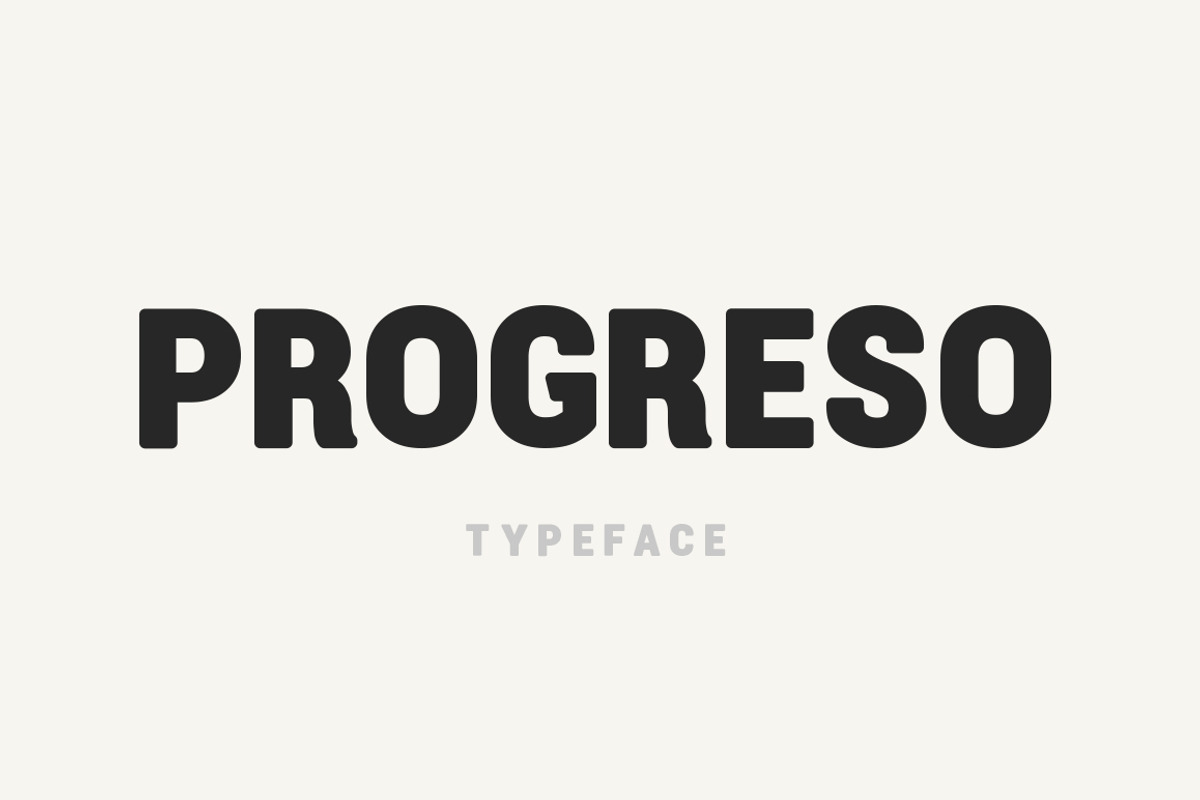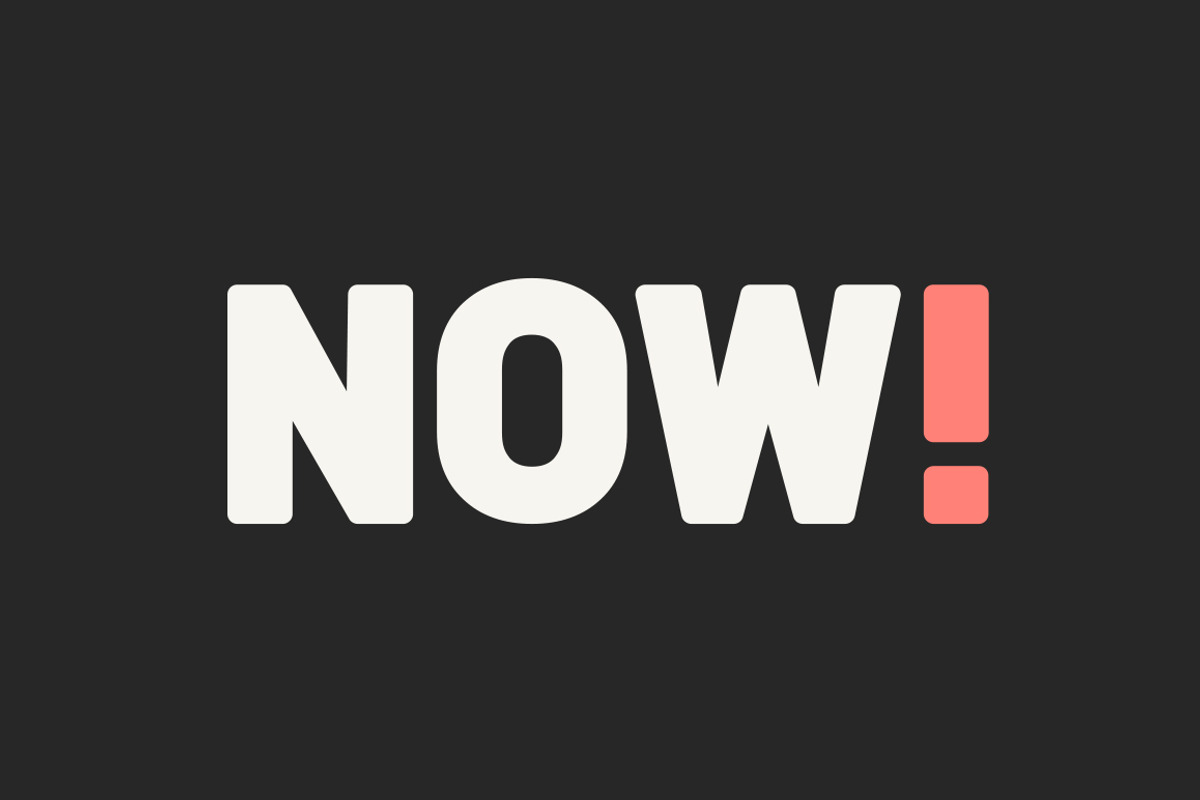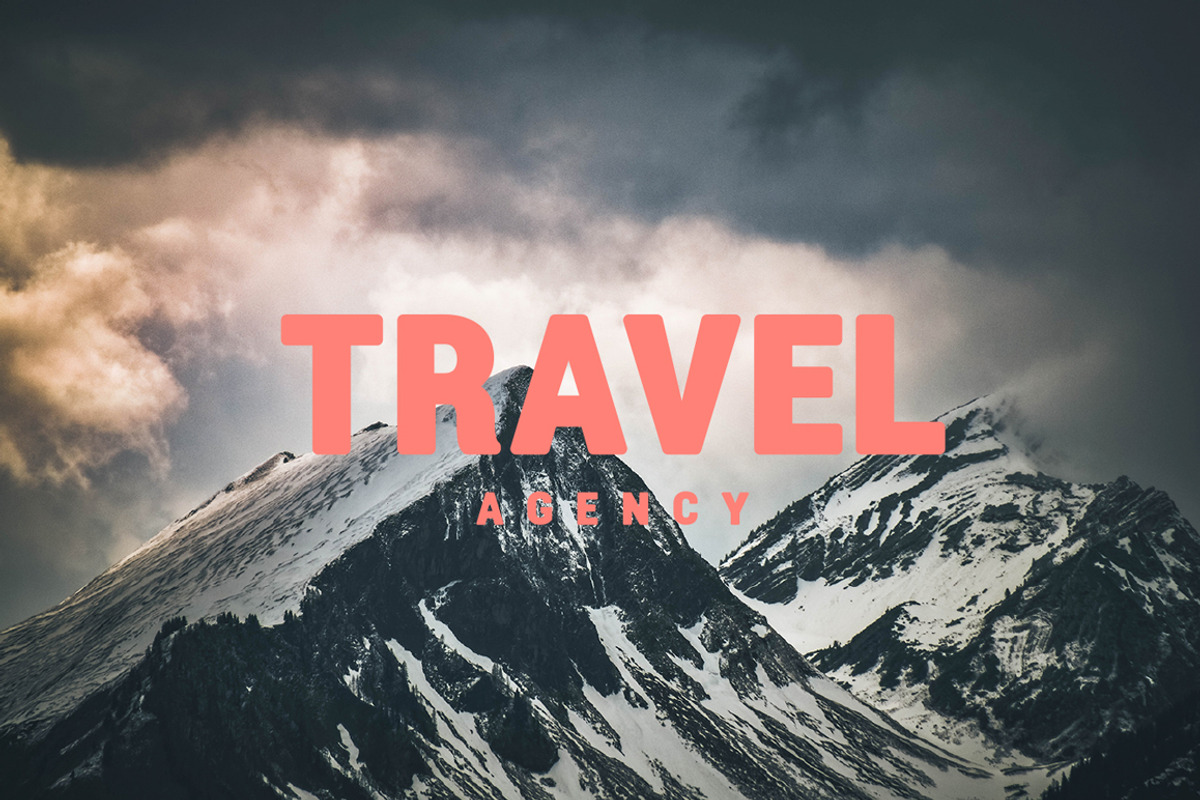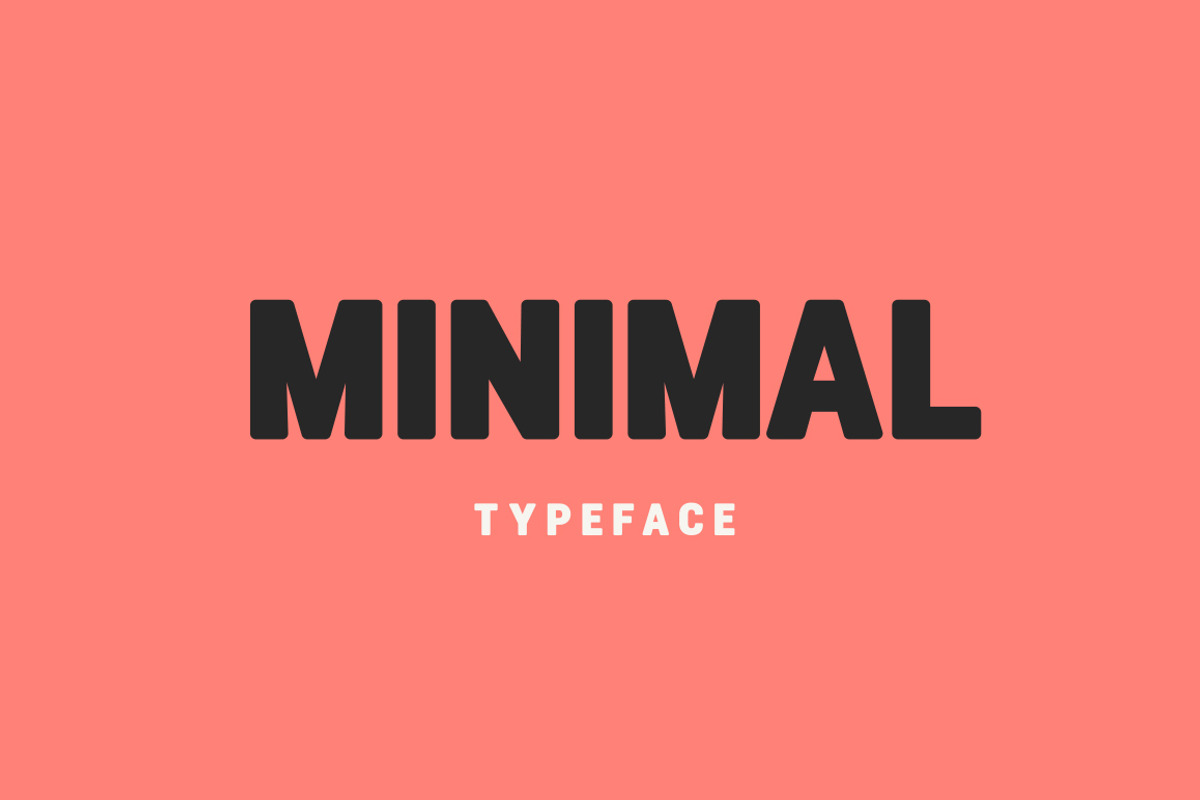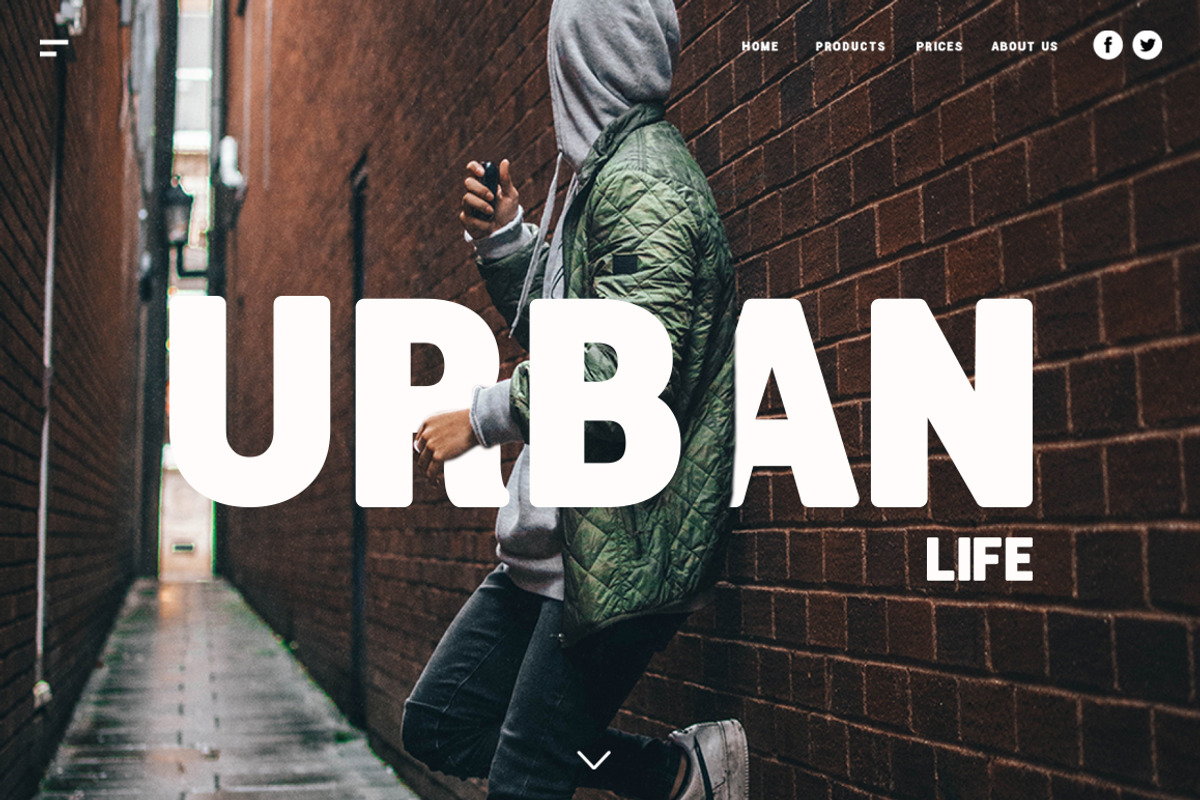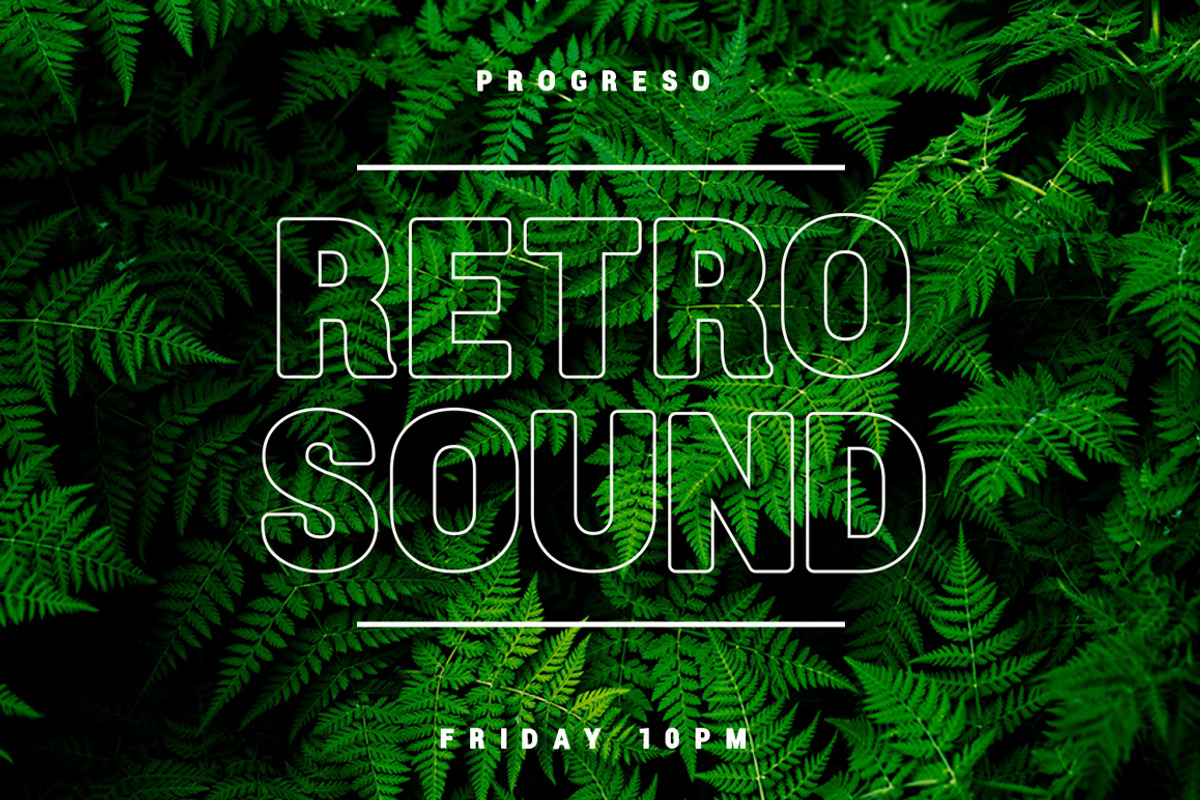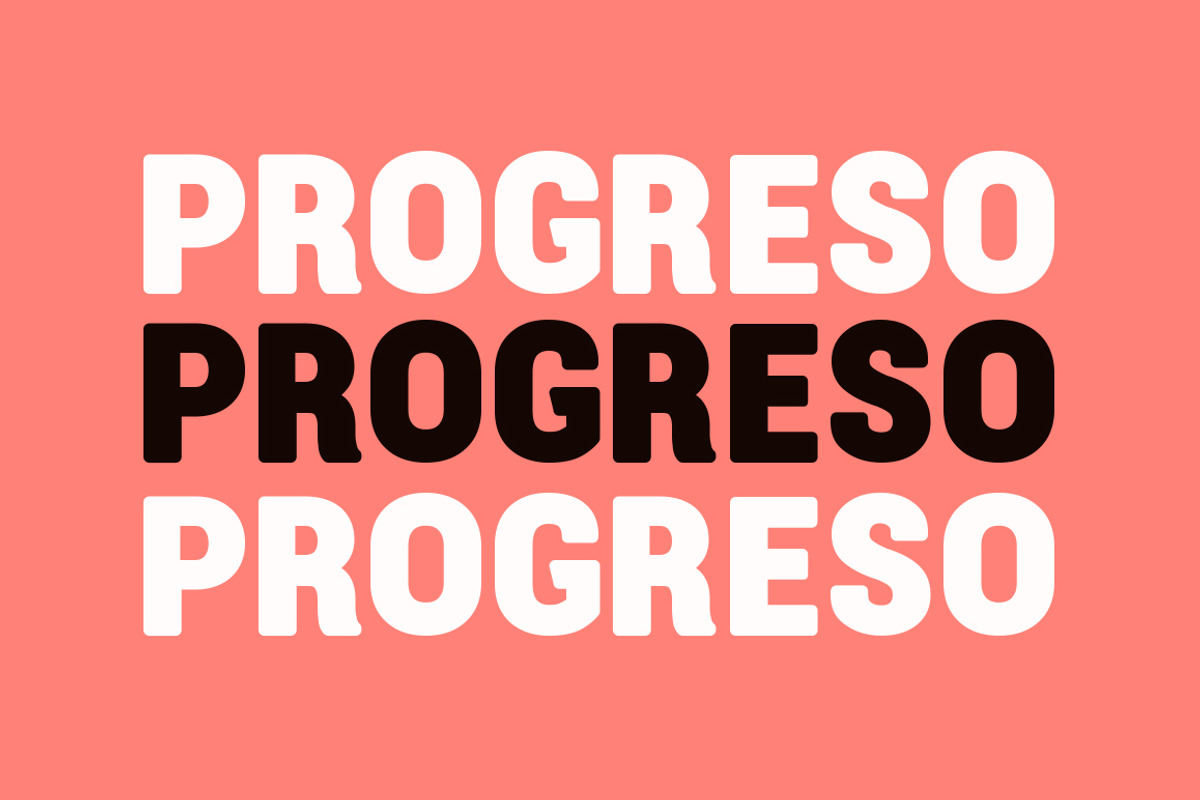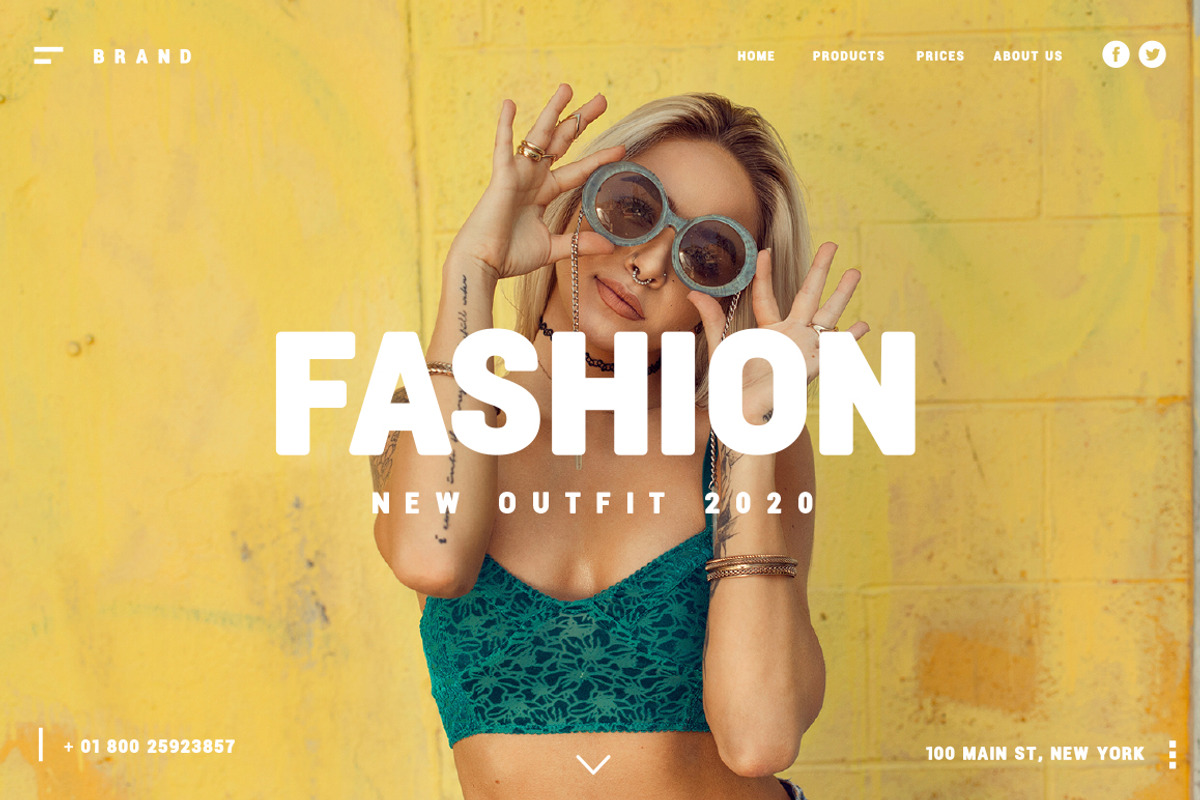
Progreso Typeface
- Logo & Label Design
- Apparel Design
- Web and Banners
- Advertising
- T-shirts
Why Progreso Typeface is worth a look
Progreso Typeface by Design District fits naturally into Branding, posters, packaging, typography.